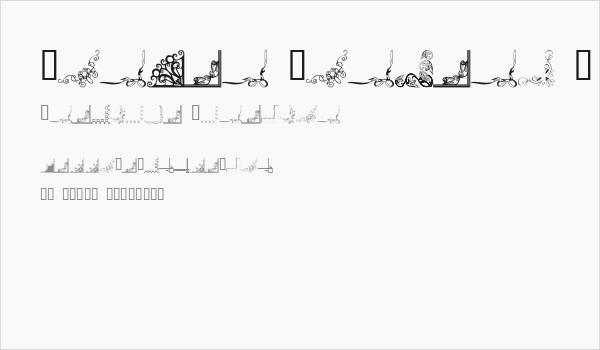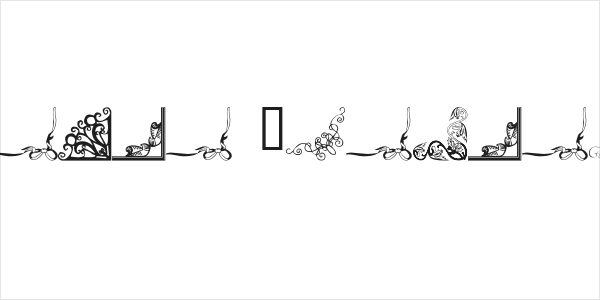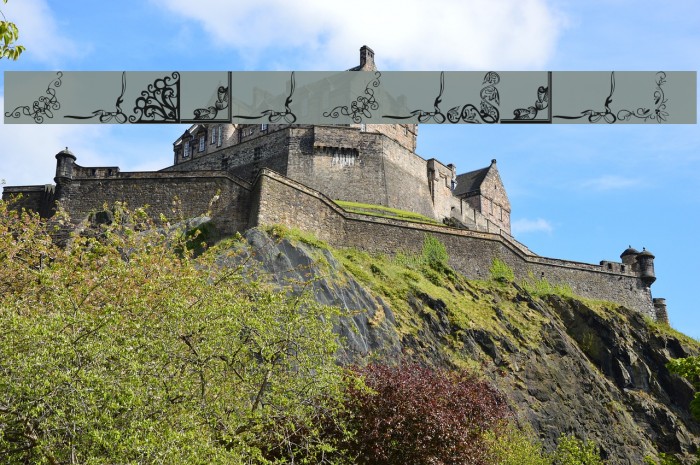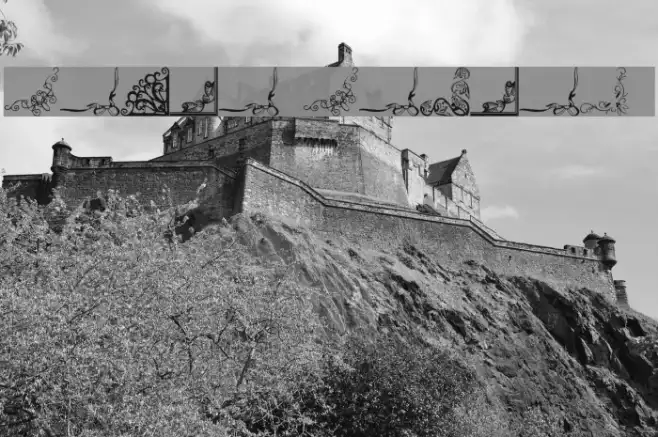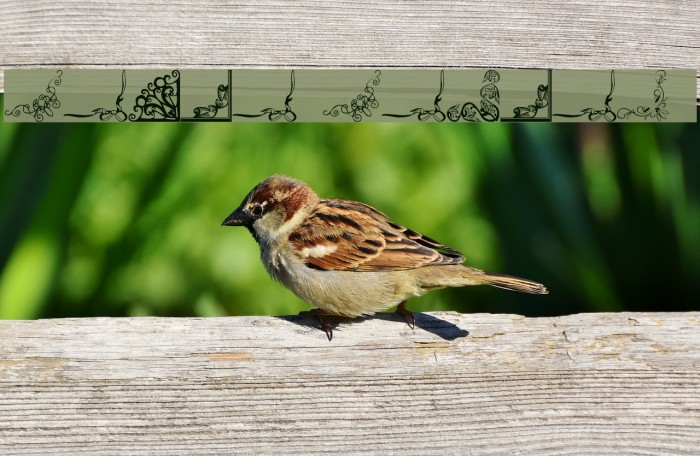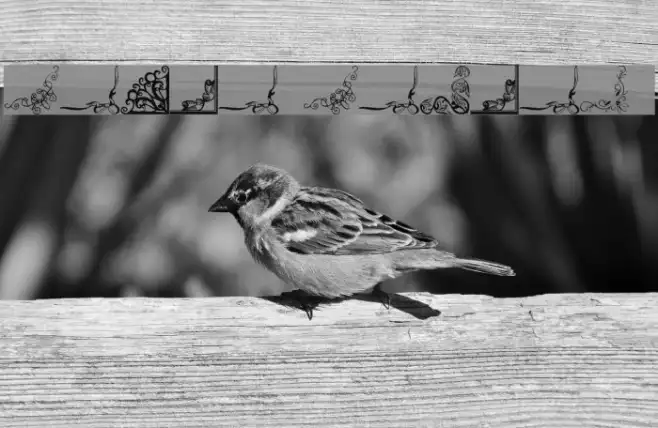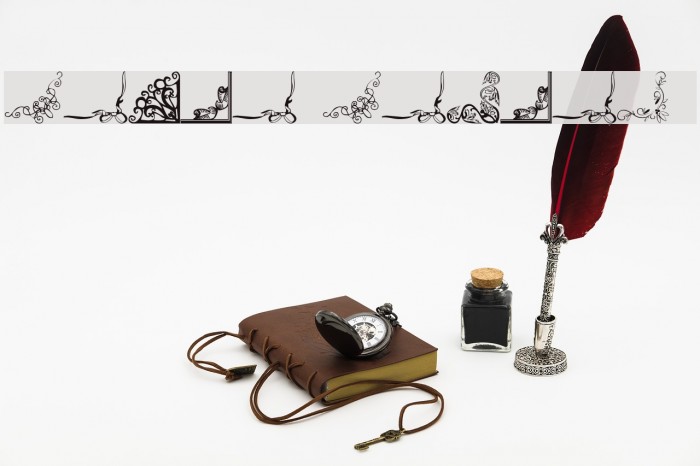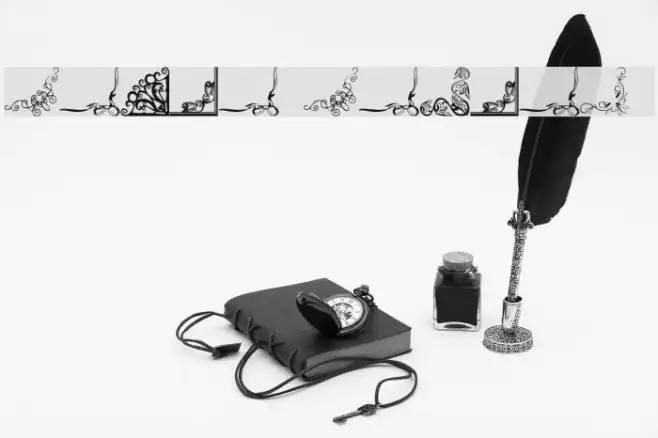
Border Corners 2 Font
| Anwendungsfall | Decorative elements for borders and frames. |
| Vorgeschlagene Projekte | Ideal for use in invitations, certificates, scrapbooking, and decorative art projects. |